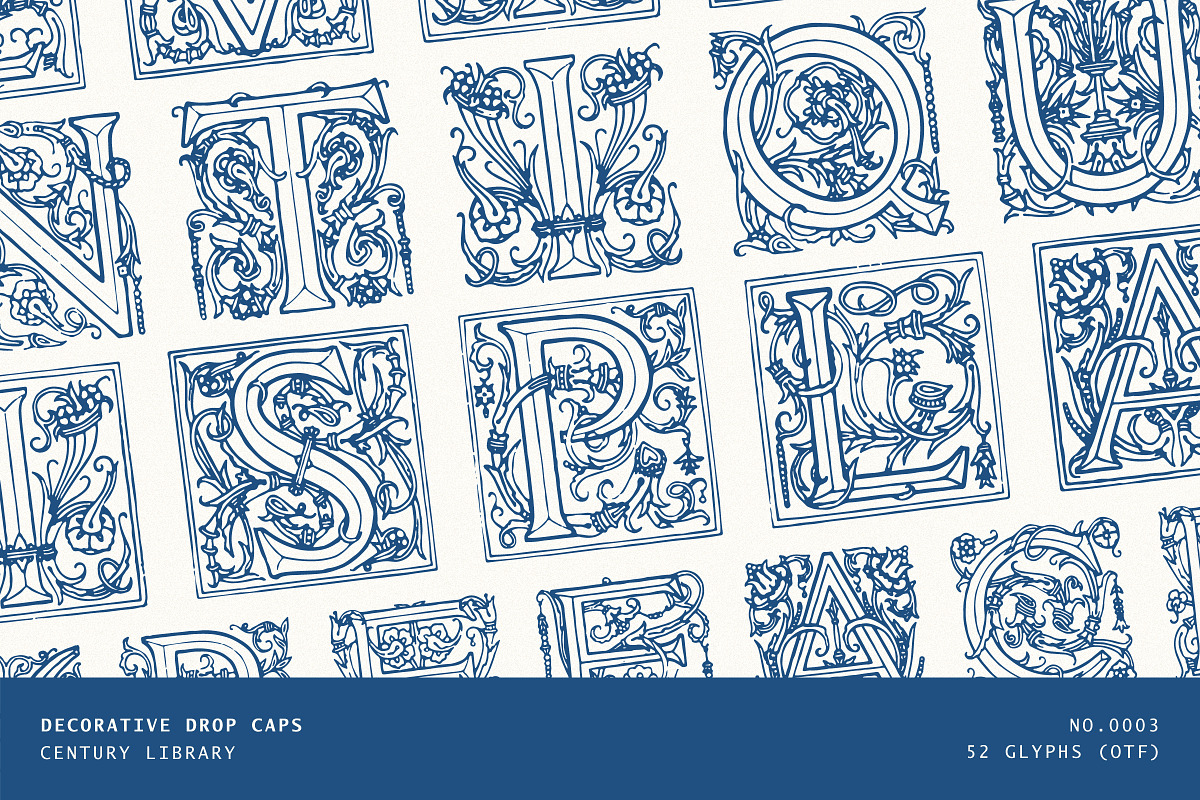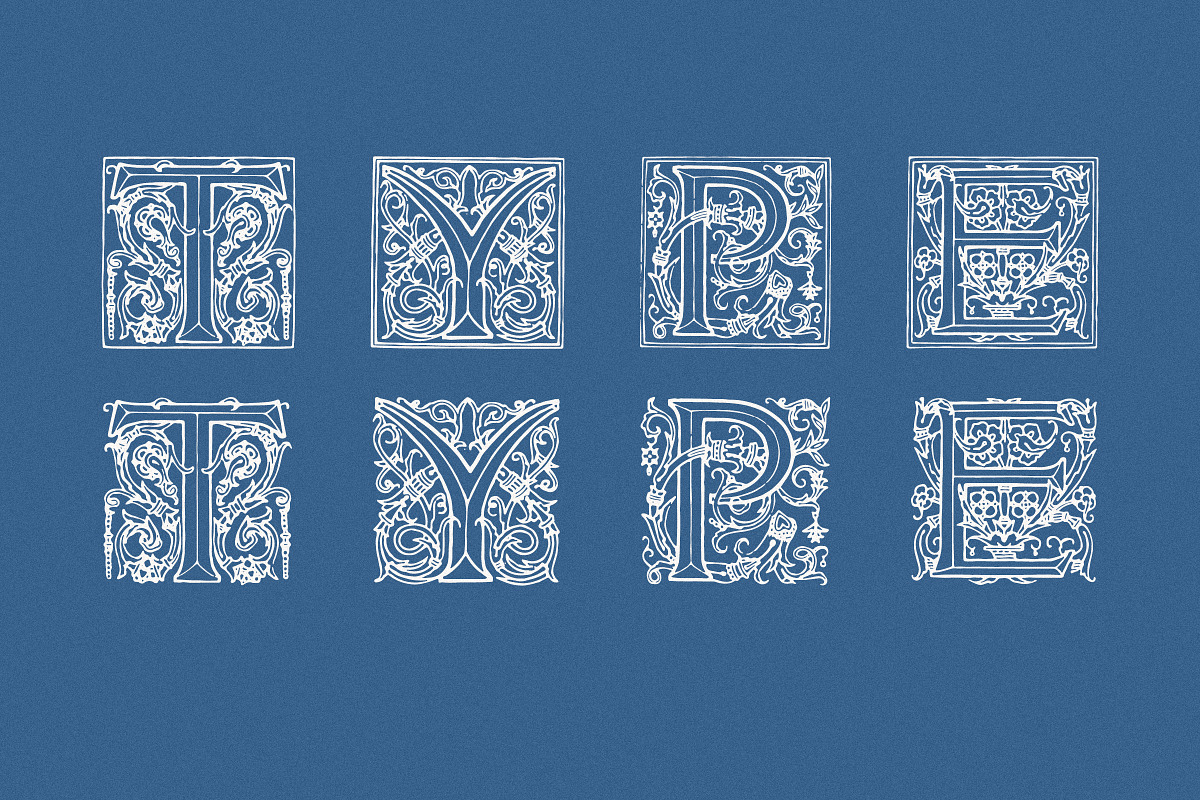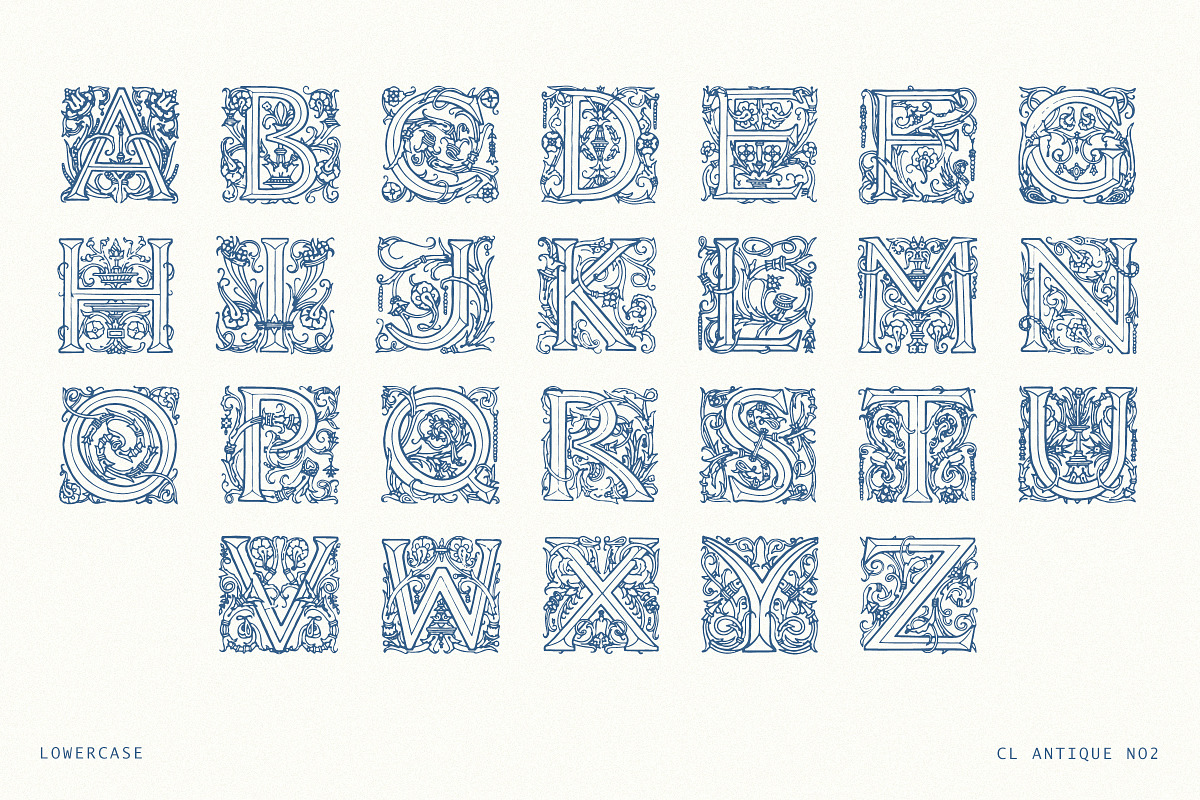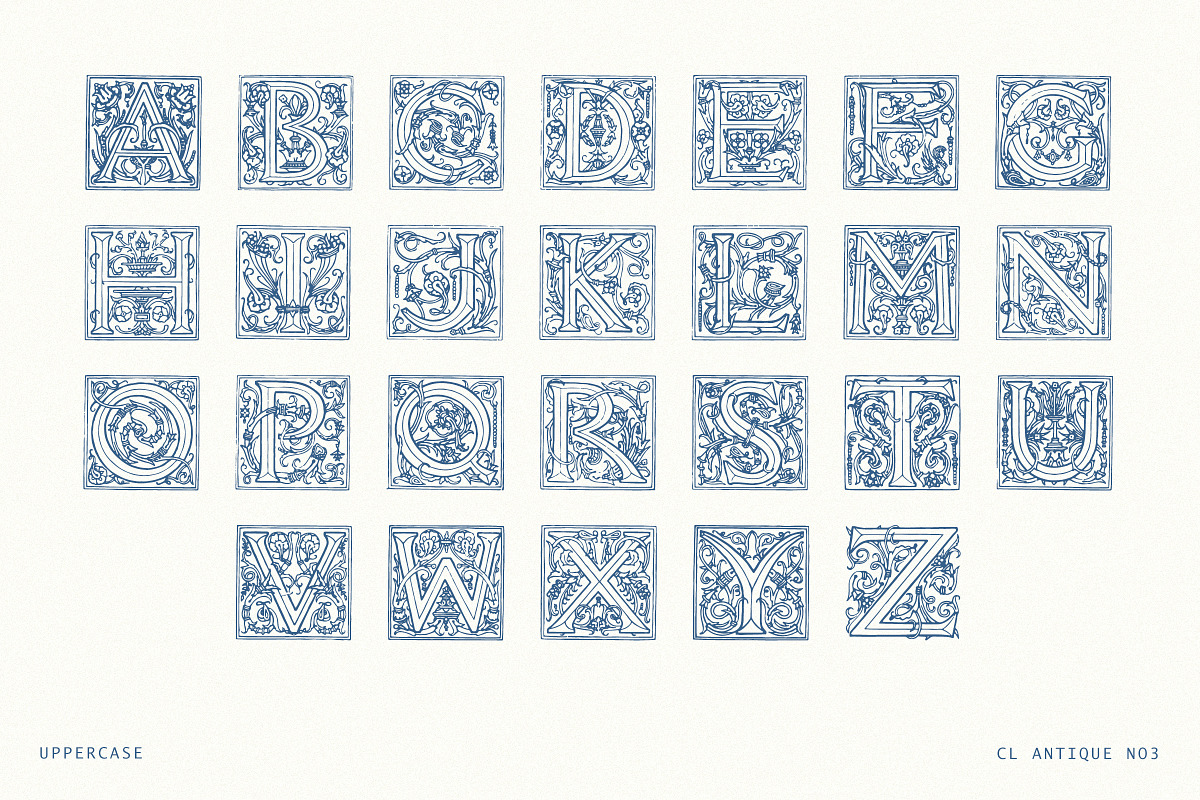
Ornate Vintage Drop Cap Font
We’re breathing new life into antique type! Introducing CL Antique No.3 - A stunning Victorian Ornamental Drop Cap Font full of Restored 19th Century Decorative Letters!
This font is part of our growing collection of restored typefaces, carefully revived from original specimens in the Century Library archive. Each one is a direct translation of the past – scanned, cleaned up, and converted into a working font so you can actually use these historic letterforms, not just look at them.
These aren’t modern interpretations or redesigns. What you see is what was once printed – charming imperfections and all. The character set is limited to what was available in the original source material, which varies from font to font.
Perfect for adding an authentic vintage feel to your designs – whether you’re working on a book cover, a poster, branding, or just something personal – these fonts carry all the texture, age, and personality you’d expect from type that’s over a century old.
- No symbols or multilingual support. This is a purely decorative display font with A-Z glyph coverage.